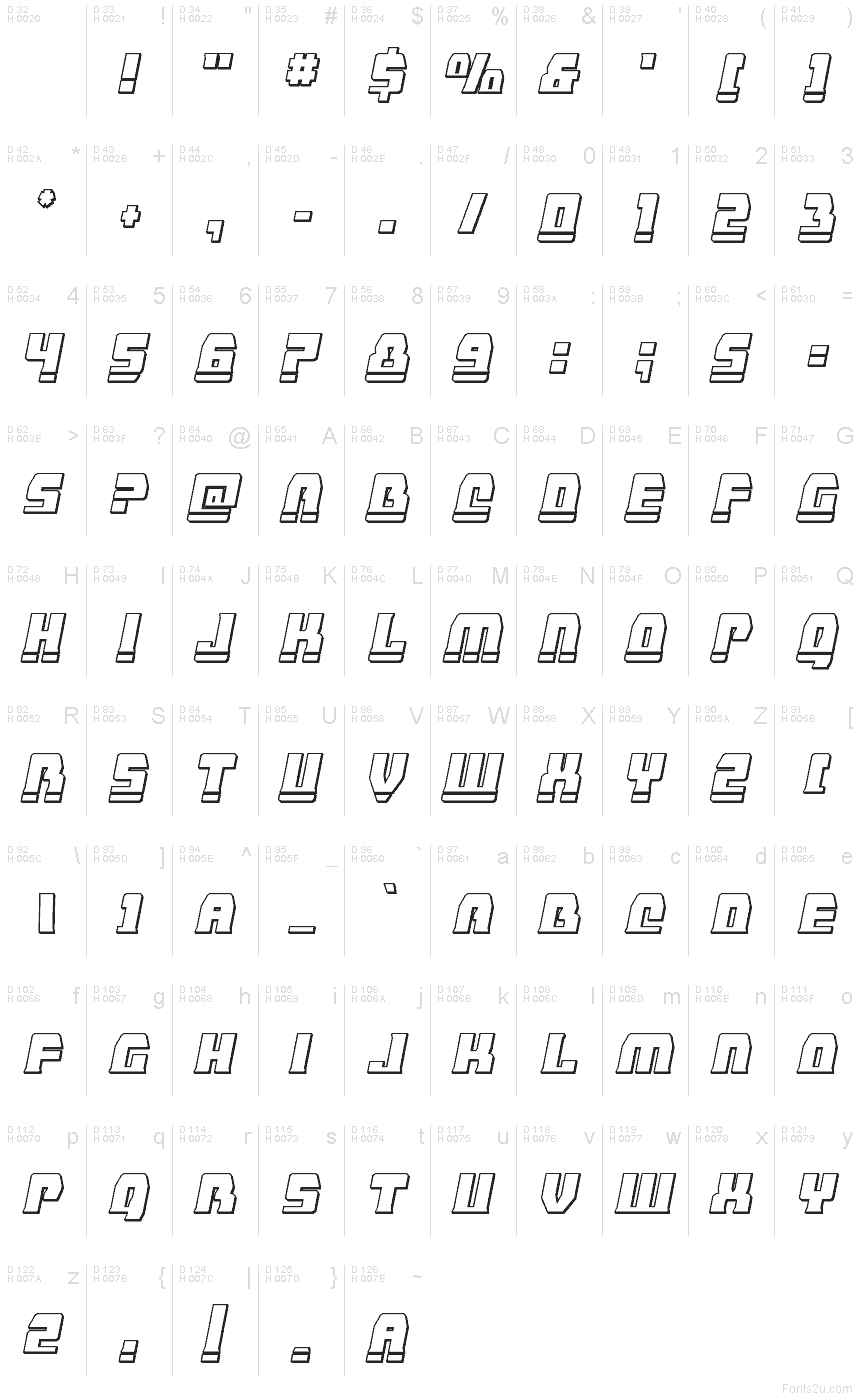
Librator Bar 3D Italic
Librator Bar 3D Italic font by Iconian Fonts brings a bold, geometric, and angular look with an industrial touch. Its 3D and techno style gives it a futuristic appearance suitable for intriguing visual displays. The sturdy and sci-fi influences make this free display font a unique choice to explore.